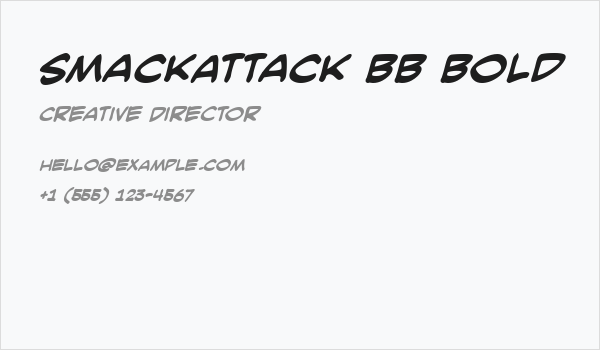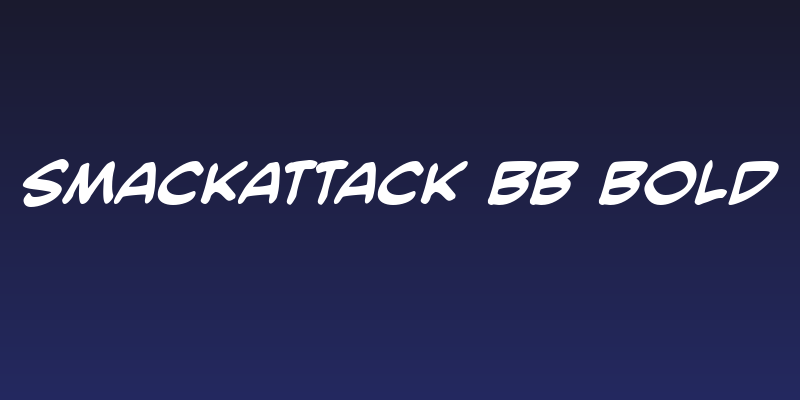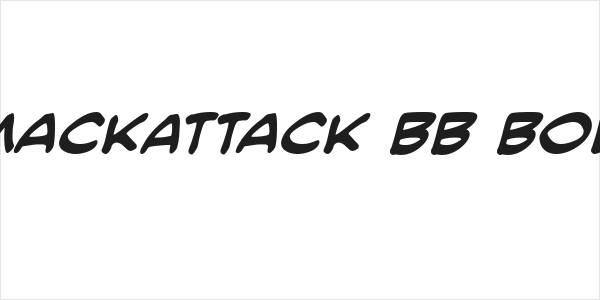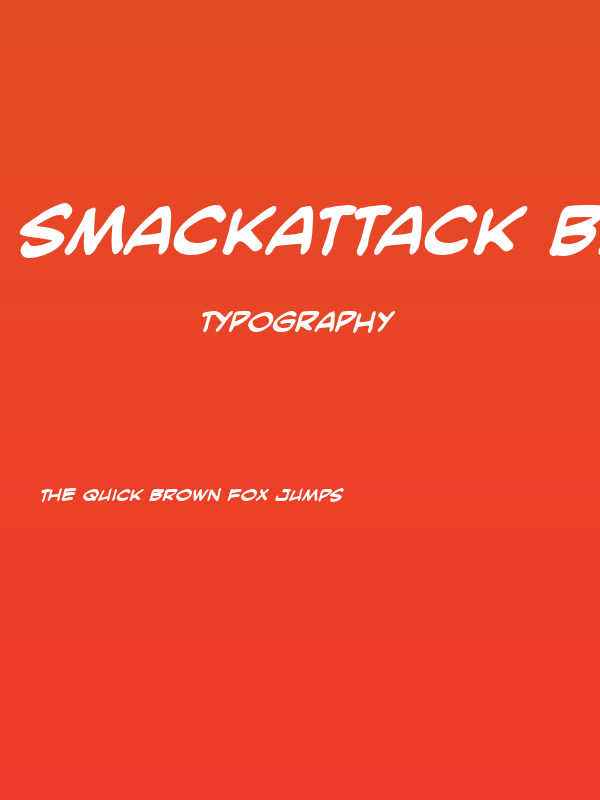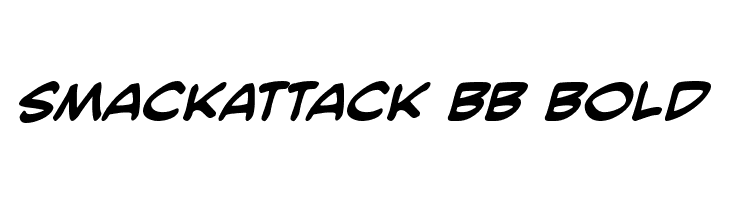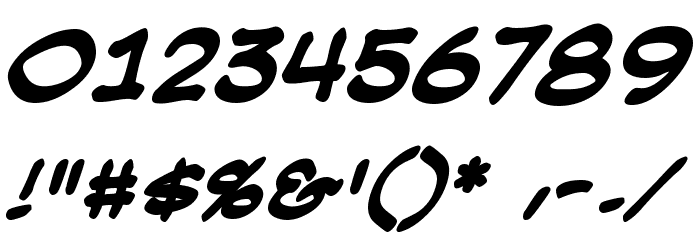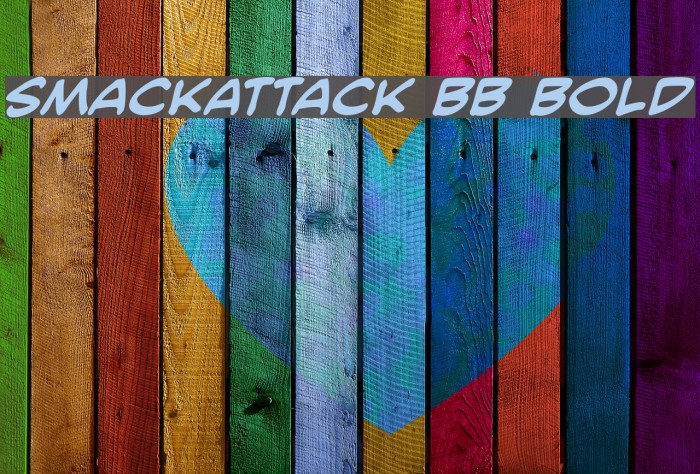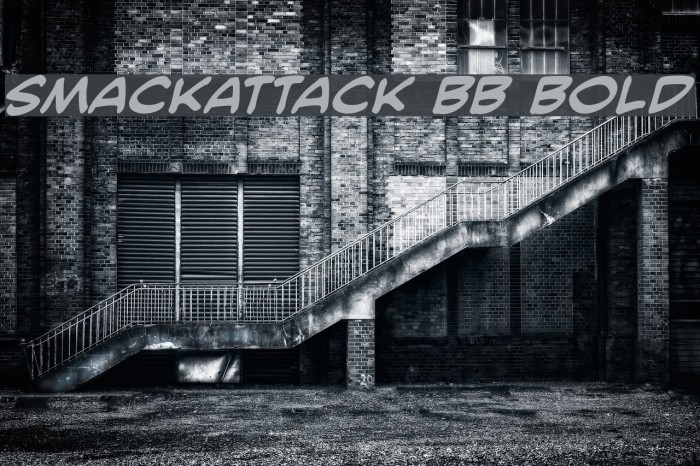
SmackAttack BB Bold Font
SmackAttack BB Bold Description
This font features a bold, energetic style with a handwritten appearance. The characters are slightly slanted, giving a dynamic and lively feel. The strokes are thick and consistent, providing a strong visual impact. The uppercase and lowercase letters maintain a cohesive look, while the numerals and special characters complement the overall design. The font's playful and informal nature makes it suitable for creative and casual projects.
| Proposed Projects | Ideal for comic books, posters, children's books, and playful branding. |